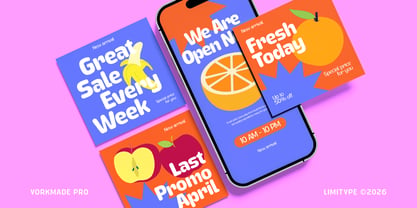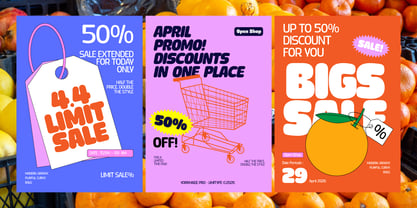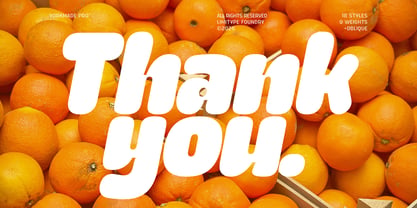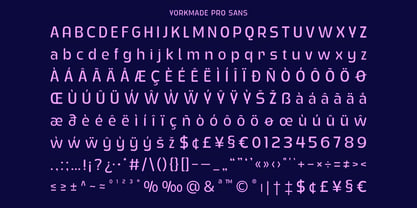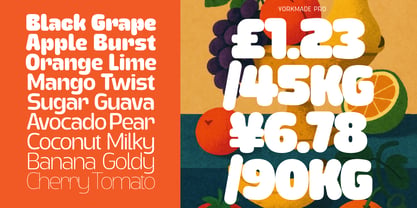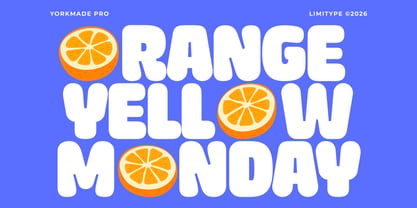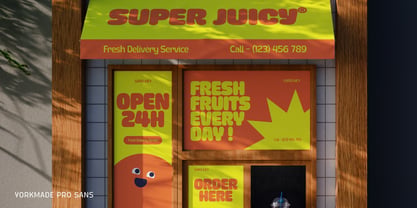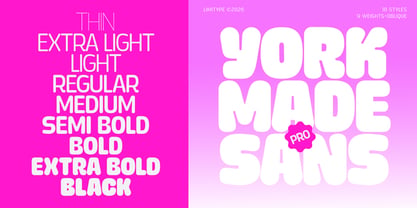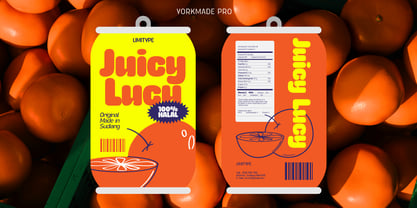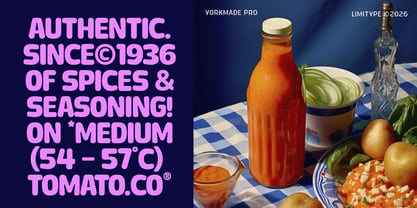
Yorkmade Pro
A família de fontes Yorkmade Pro foi desenhada por Muhammad Muammar, Furqan Sudirman e publicada pela limitype. Yorkmade Pro contém 18 estilos e opções de pacote familiar. Saiba mais sobre esta família
This is the pro version of the previous font, Yorkmade standard, featuring an updated family that is more versatile and enriched with additional glyph characters. Yorkmade Pro is suitable for display needs or designs that require large text, and it can also serve as body text.
• Uppercase
• Lowercase
• Number & Symbols
• Multilingual
• Basic & Oblique
• 18 Font